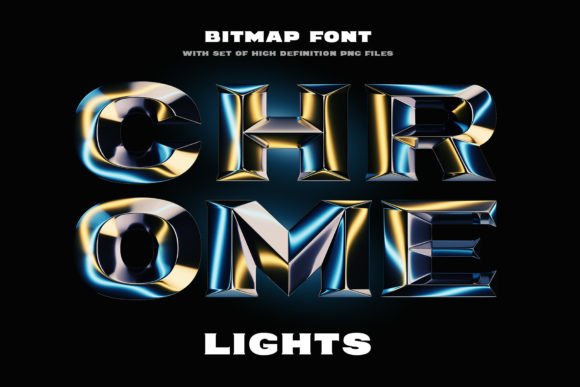
Introducing Chrome Lights Font, a vibrant and captivating addition to your font library. Created by the talented Gleb Guralnyk, this colorful font family is specifically designed for small text, ensuring clarity and readability in every project.
With its bold beveled shape and a mesmerizing shining reflecting surface, Chrome Lights Font brings a touch of brilliance to your designs. Whether you're working on a website, advertisement, or any other creative endeavor, this 3D-rendered typeface is guaranteed to make your content stand out.
Imagine the impact of Chrome Lights Font on your next project. Picture your words coming to life with a luminous glow, captivating your audience and leaving a lasting impression. This font is not just another addition to your collection; it's a powerful tool to elevate your creative vision.
One of the key features of Chrome Lights Font is its versatility. It seamlessly adapts to various design styles and themes, enhancing the overall aesthetic appeal. Whether you're aiming for a futuristic look or a retro vibe, this font effortlessly complements your desired atmosphere.
But Chrome Lights Font is not just about aesthetics. It's also about functionality. With its meticulous attention to detail, this font ensures legibility even at smaller sizes. Say goodbye to squinting and straining your eyes to read tiny text. Chrome Lights Font guarantees a smooth reading experience for your audience, making it perfect for websites, mobile apps, and other platforms.
Unlock your creativity with Chrome Lights Font and witness your ideas come to life in a whole new light. Its captivating charm evokes emotions, leaving your viewers in awe and craving for more. Whether you're a designer, marketer, or entrepreneur, this font empowers you to communicate your message with impact and style.
In a world where first impressions matter, Chrome Lights Font is your secret weapon. It grabs attention, sparks curiosity, and entices users to explore further. Stand out from the crowd and leave a lasting impression with this captivating font.